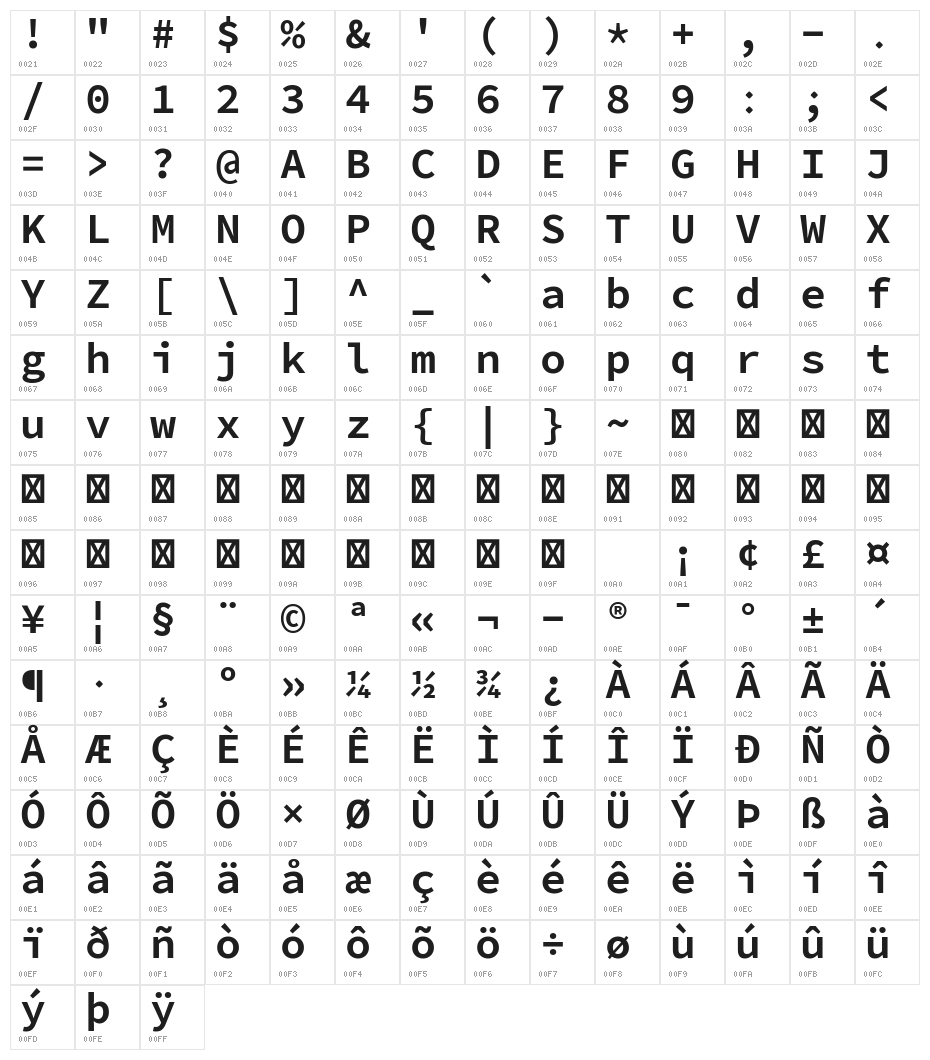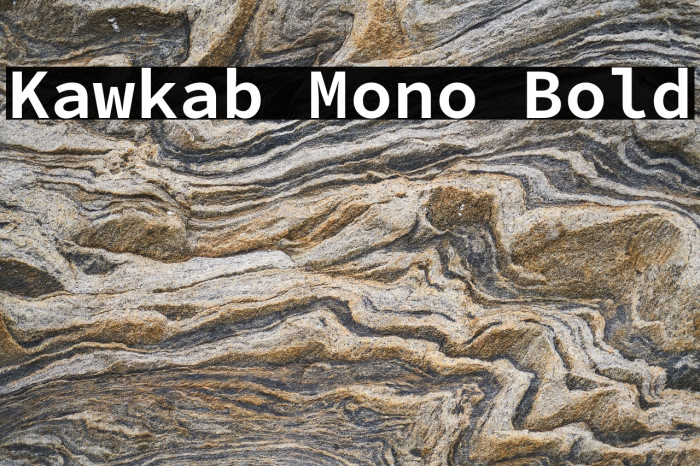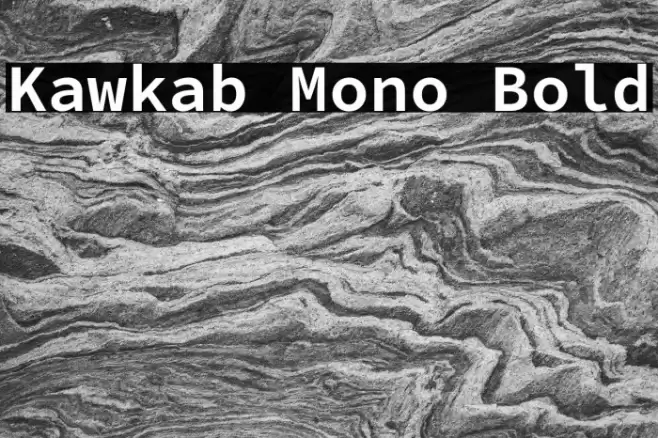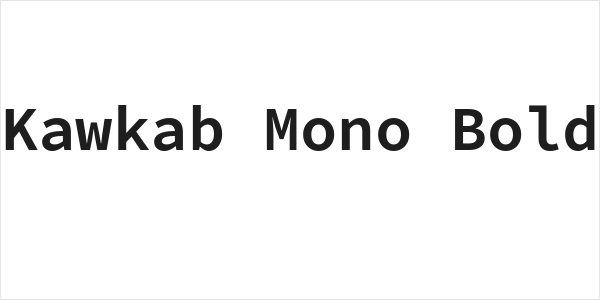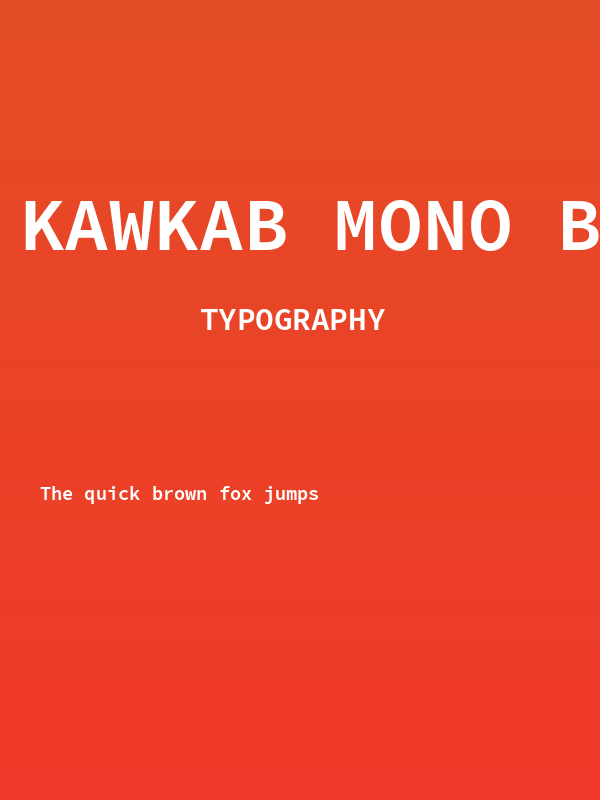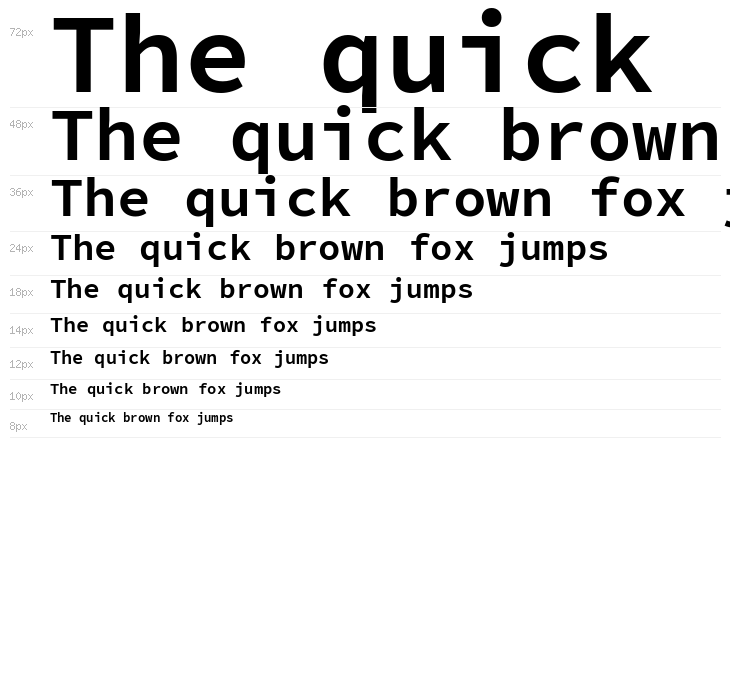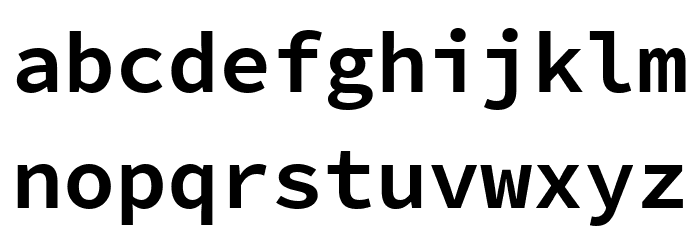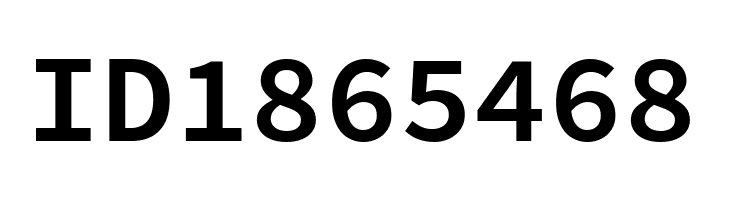
Kawkab Mono Bold Font
Kawkab Mono Bold Description
This monospaced font features a bold and clean design, characterized by uniform character width and consistent stroke thickness. The uppercase and lowercase letters are well-proportioned, providing a balanced appearance. The numerals are clear and distinct, ensuring readability in various contexts. Special characters are designed with simplicity, maintaining the overall aesthetic. The font's boldness makes it suitable for coding, technical documentation, and any application where clarity and precision are paramount.
| Use Case | Coding, Technical documentation, Data tables |
| Proposed Projects | Ideal for coding, technical documentation, data tables, and any project requiring clear, precise text. |